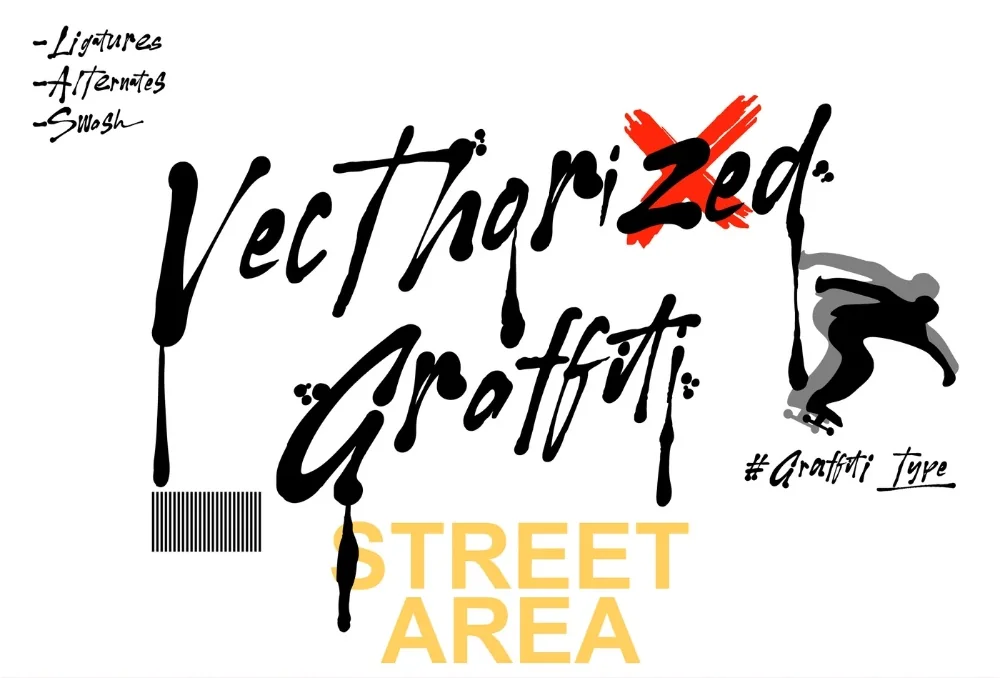
Vector Sharp Graffiti Font
A vector graffiti font lives or dies on how it behaves at real sizes, and this one has been tested at both extremes. Precise, digitally sharp graffiti with no hand-drawn wobble. The cleanest cut in the collection.
Every curve is smooth and every corner is exact, which makes it the safest option for cutting machines and screen printing. The energy comes from the shapes themselves rather than texture.
Made for vinyl cutting, screen print separations, embroidery digitising, and crisp product mockups.
It reverses well out of dark backgrounds, which is worth remembering if the artwork is heading for a black shirt or a night-time photograph.